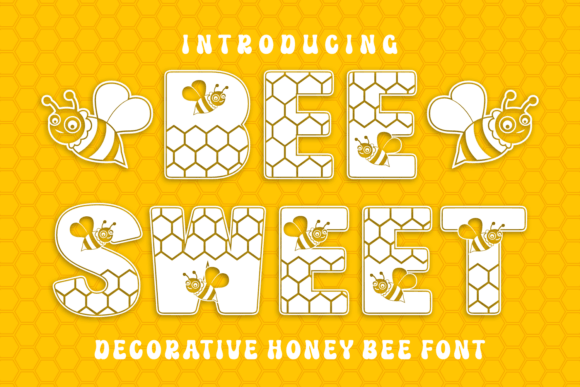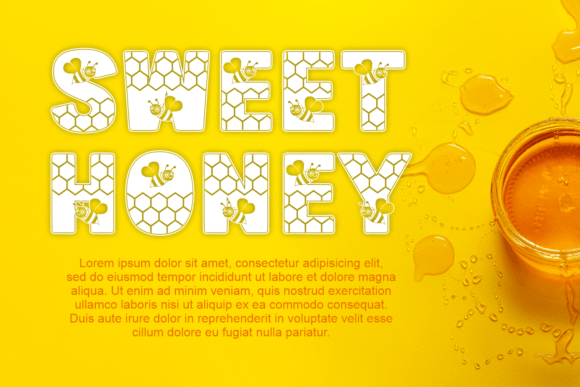
Bee Sweet Font
Bee Sweet is a delightful decorative font adorned with honeybee patterns and tiny bees. It’s a charming choice for adding a touch of sweetness to your designs. Perfect for anything from invitations to labels, Bee Sweet brings a cheerful vibe with its playful style.